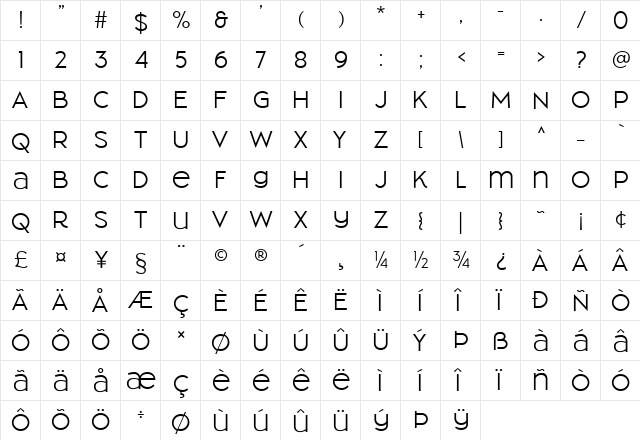
Cherione Normal
| Foundry | Arterfak Project |
| Designer | Ahmad Ramzi Fahruddin |
Design Context for Cherione Typeface
Cherione is a composed and adaptable typeface that performs quietly and consistently across a wide range of design contexts.